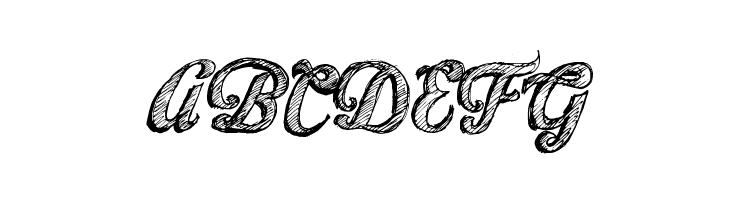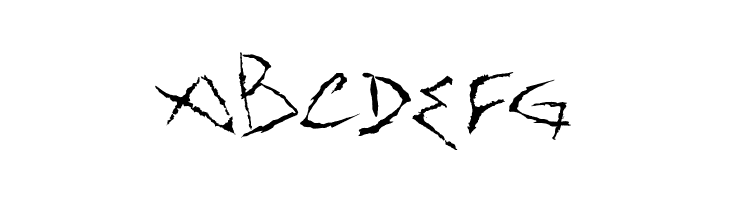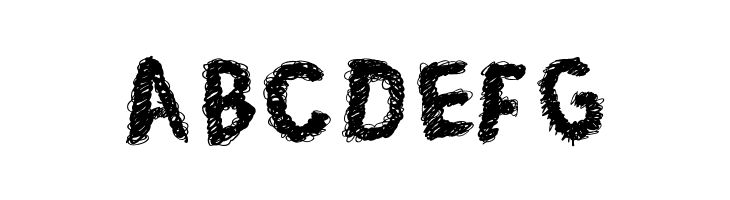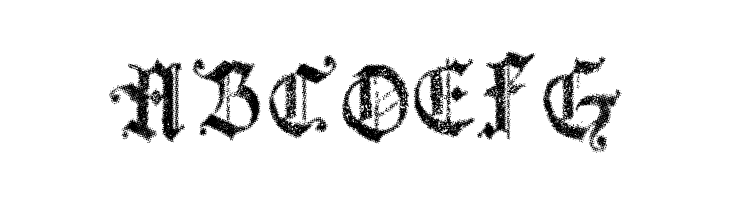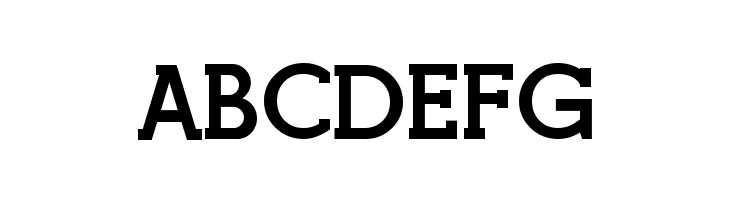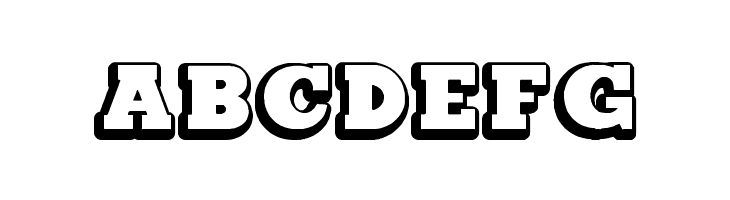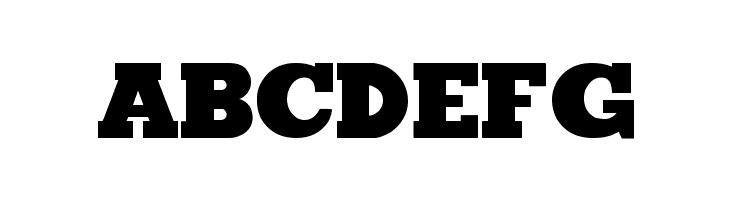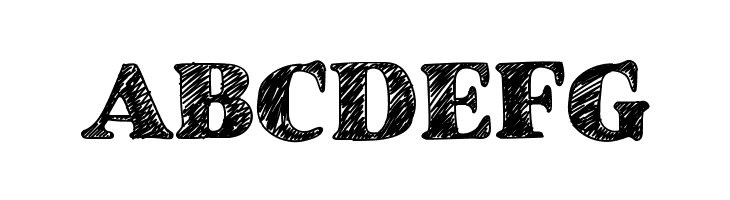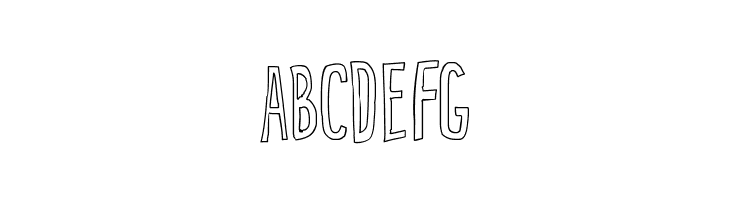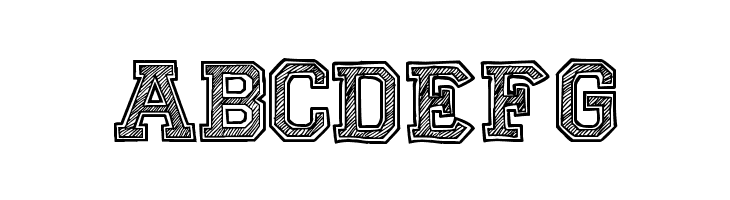
A sketch-style font with hand-drawn, textured characters.
A rugged, hand-drawn font with a chaotic, ancient script vibe.
A bold, sketch-like Gothic font with intricate, hand-drawn details.
A bold, distressed stencil-style font with a rugged, military-inspired look.
A playful, handwritten-style font with a lively and informal appearance.
A rough, hand-drawn font with a textured, sketched appearance.
A bold, ornate blackletter font with intricate, gothic-style letterforms.
A whimsical, hand-drawn font with thin, elongated letterforms.
A bold, modern font with geometric lines and a strong presence.
A bold serif font with an outline effect, perfect for impactful headlines.
A bold serif font with strong, thick strokes and pronounced serifs.
A bold, textured serif font with a hand-drawn, playful style.
A playful, hand-drawn outline font with a whimsical and artistic style.
A bold, sketch-style font with a hand-drawn, textured appearance.
A bold, condensed font with a modern and impactful style.
A bold, distressed font with a vintage Western feel.
An ornate Blackletter-style font with decorative flourishes and bold, angular characters.
A bold, jagged script font with sharp, dynamic edges.
A bold, angular font with a metallic outline and futuristic design.
A bold, angular font with a futuristic and industrial design.
A bold, vintage cursive font with a textured, handcrafted appearance.
A bold, italicized font with a playful, comic book style.
A playful, hand-drawn italic font with decorative lines and medium contrast.
A jagged, hand-drawn font with an edgy, dynamic appearance.
A whimsical calligraphic font with elegant, flowing strokes and decorative flourishes.
A playful, rounded font with smooth curves and a friendly appearance.
A bold, playful font with dotted shadow effects, combining modern and retro styles.
A distressed, hand-drawn font with a grungy, artistic texture.
A playful, hand-drawn sketch font with bold, textured letterforms.
A bold, distressed font with a vintage, stamp-like appearance.
A bold, slab serif font with a strong, modern presence.
A bold, geometric font with modern and playful elements.
A bold, modern font with tall, narrow characters and consistent stroke width.
A bold, hand-drawn font with a sketchy, textured appearance.
A bold, modern sans-serif font with clean lines and balanced proportions.